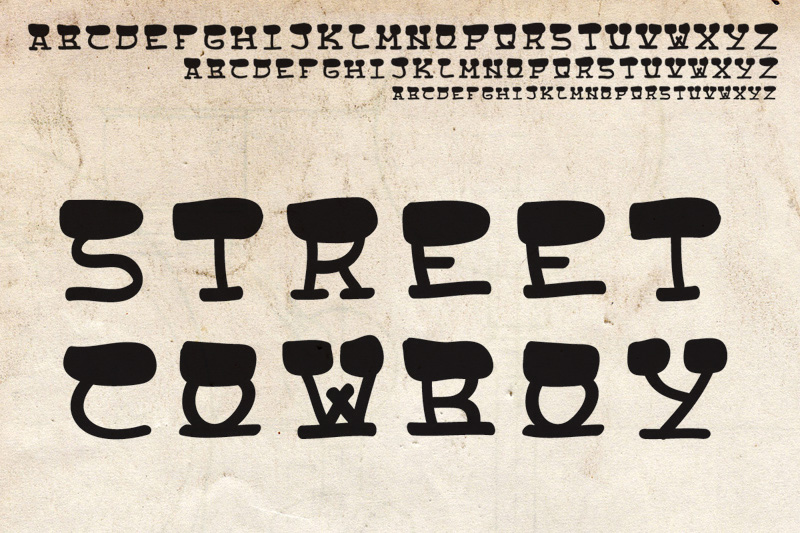
Font name: | Street Cowboys |
Author: | Fausto Furioso |
Note by Fausto Furioso | |
Ironic approach to typographic design with a source involved in the formation of appropriate signage and display where it comes to finding a hybrid between the historic wooden forms and calligraphic informality of the comic language CC attribution |